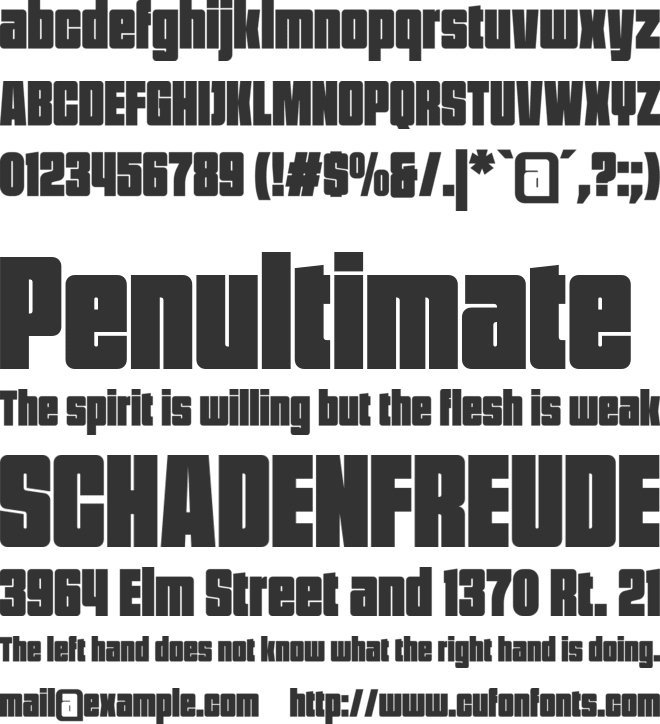
Bokis Font Family
It’s a bold sans serif font that is simple but strong, defined by sharp edges with a modern touch. This font will provide a confident and impressive base headline to any of your designs. Balance on each side is well maintained. It’s ideal for headlines, titles, posters, branding, and logotypes that require big impact.